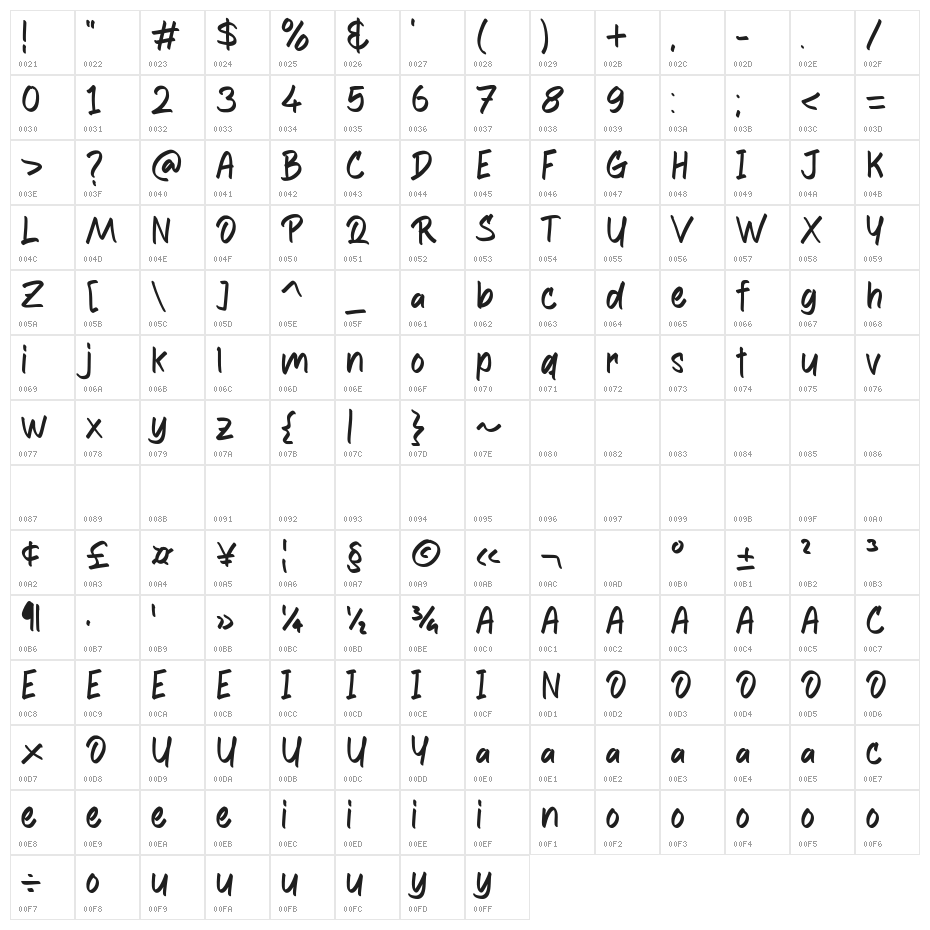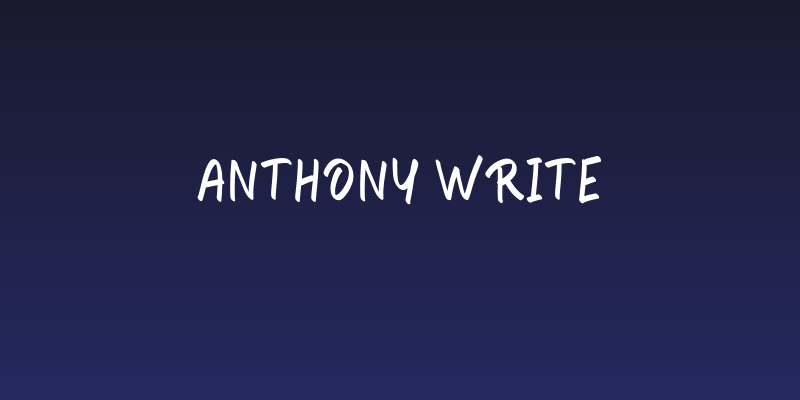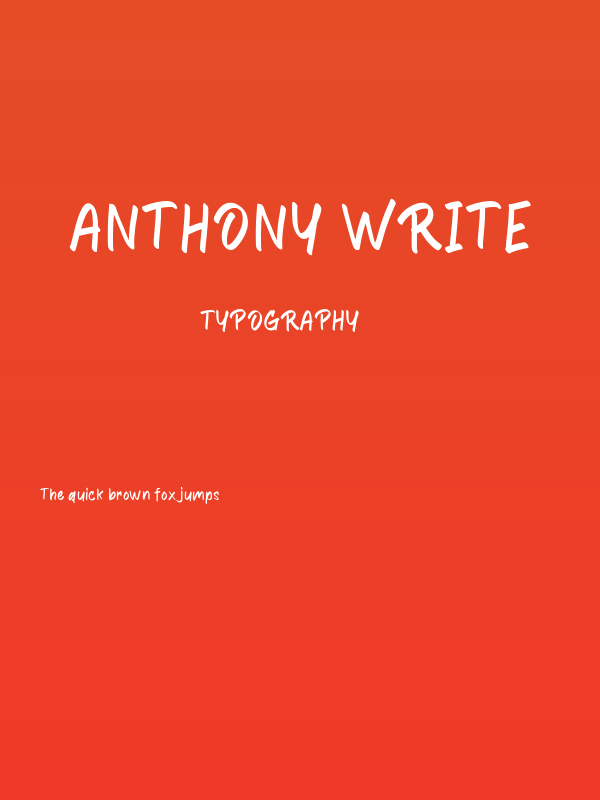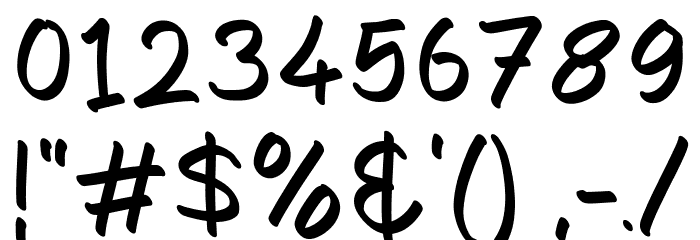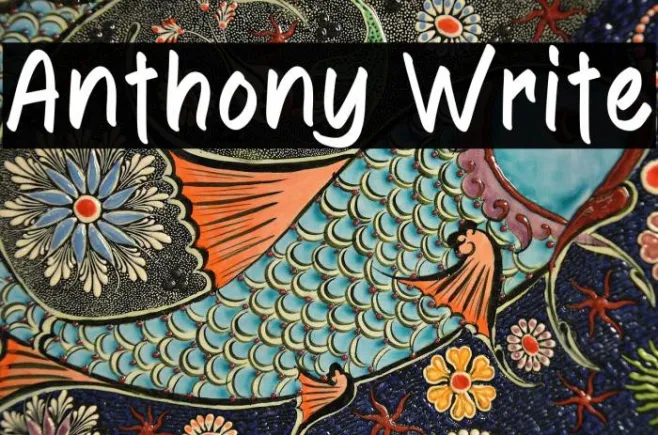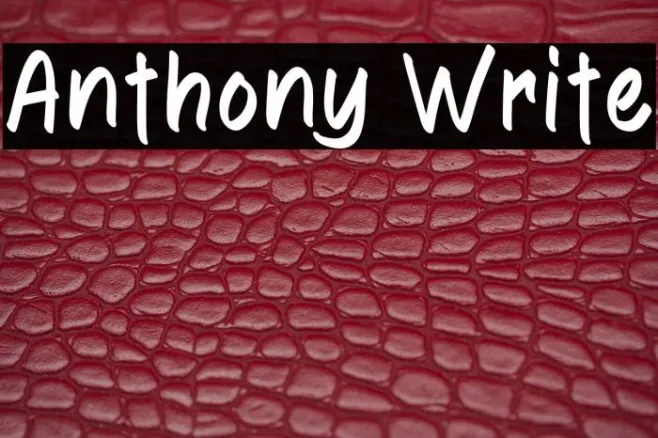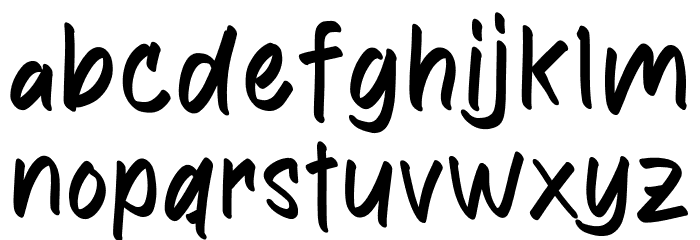
Anthony Write Font
Anthony Write Description
This font exhibits a playful and casual handwritten style, characterized by its smooth and slightly irregular strokes that mimic natural handwriting. The letters are bold and rounded, providing a friendly and approachable appearance. The uppercase and lowercase letters maintain a consistent style, with a slight slant that adds to the informal feel. Numbers and special characters are crafted with the same playful touch, ensuring uniformity across all glyphs. The overall design is clean yet lively, making it suitable for projects that require a personal and engaging touch.
| Overall Style | Casual |
| Use Case | Logos, Headlines, Informal Text |
| Proposed Projects | Ideal for greeting cards, invitations, personal branding, children's books, and social media graphics. |